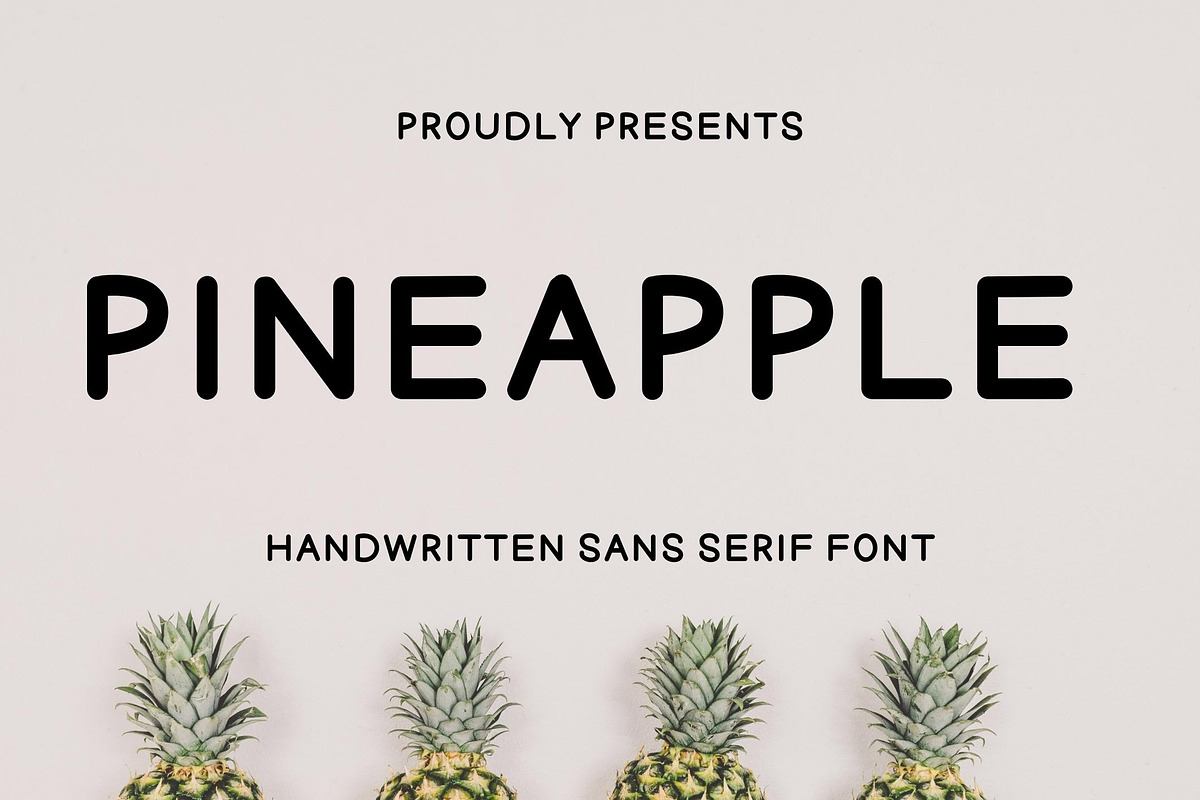
Pineapple - Handwritten sans serif Free Download
Pineapple - Handwritten Sans Serif Font Free Download
The Pineapple - Handwritten Sans Serif Font Free Download is a fresh and modern typeface that combines the casual charm of handwritten letters with the clean lines of a sans serif design. Perfect for creating logos, branding, social media graphics, invitations, and more, Pineapple adds a fun and friendly vibe to your projects. Whether you’re working on a personal project, a creative brand, or a modern event, this font brings a unique touch to your work.
Pineapple - Handwritten Sans Serif Font Free Download is ideal for designers looking to add a playful and modern twist to their work. Perfect for projects requiring a friendly, easy-to-read font, Pineapple will enhance your designs with its unique handwritten sans serif style. Download it today and bring a touch of fun to your creative projects!